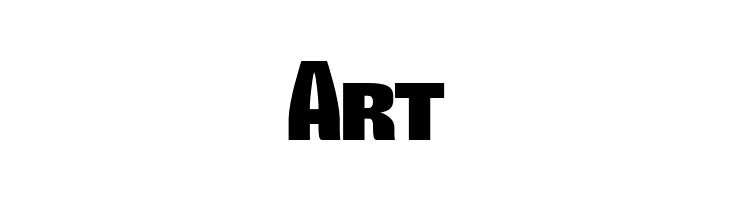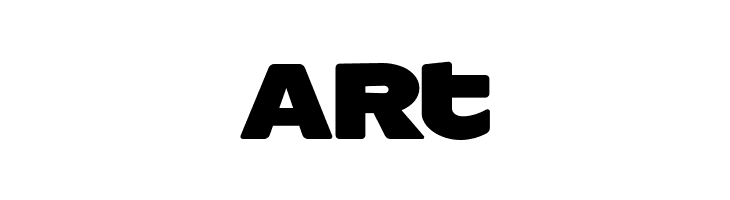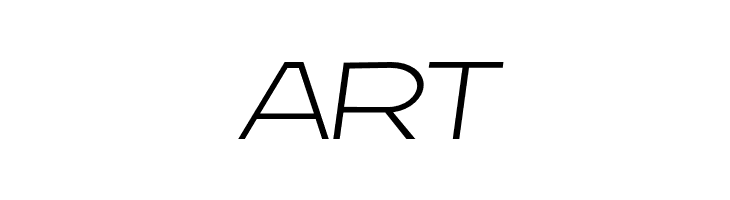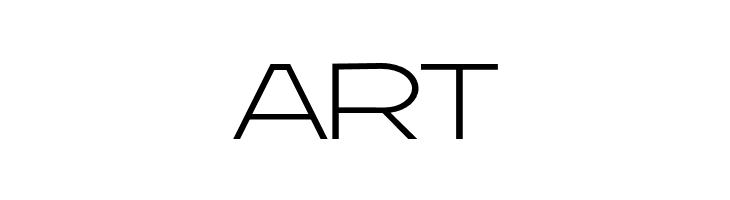
A modern, geometric font with clean lines and a structured, professional appearance.
A decorative serif font with a double-line, shadowed design.
A bold, modern font with thick, uniform strokes and a slightly condensed style.
A modern, geometric outline font with a sporty and futuristic design.
A modern, clean sans-serif font with low contrast and a sleek appearance.
A modern, geometric font with clean lines and a structured appearance.
A bold, rounded font with a strong, uniform presence.
A sleek, extra-light italic sans-serif font with a modern and dynamic style.
A sleek, geometric font with a modern and minimalistic design.